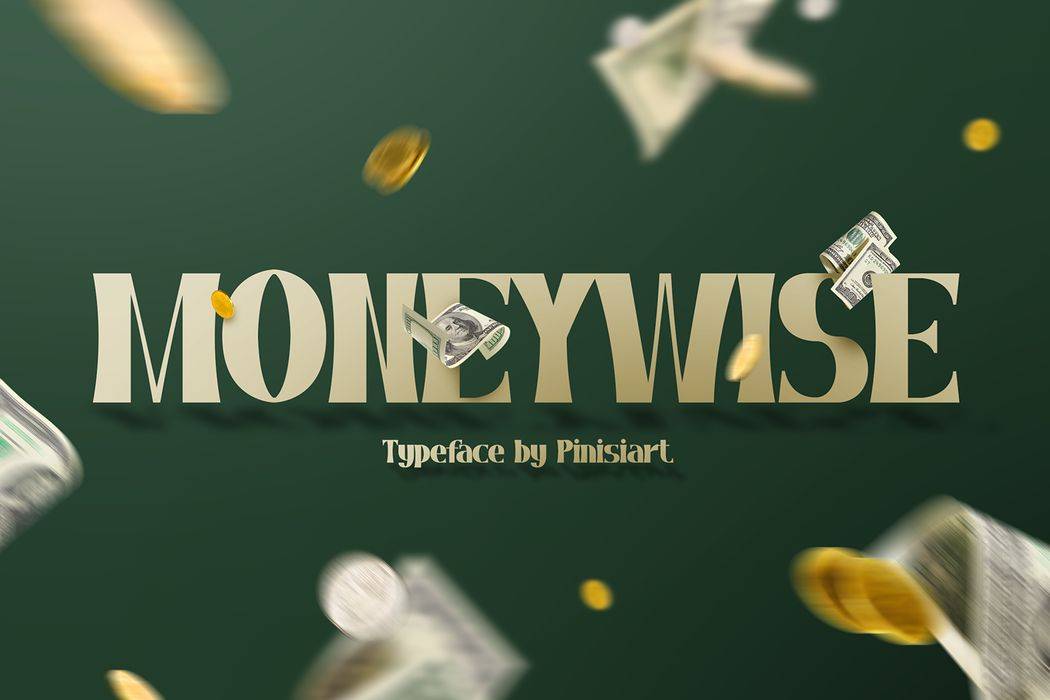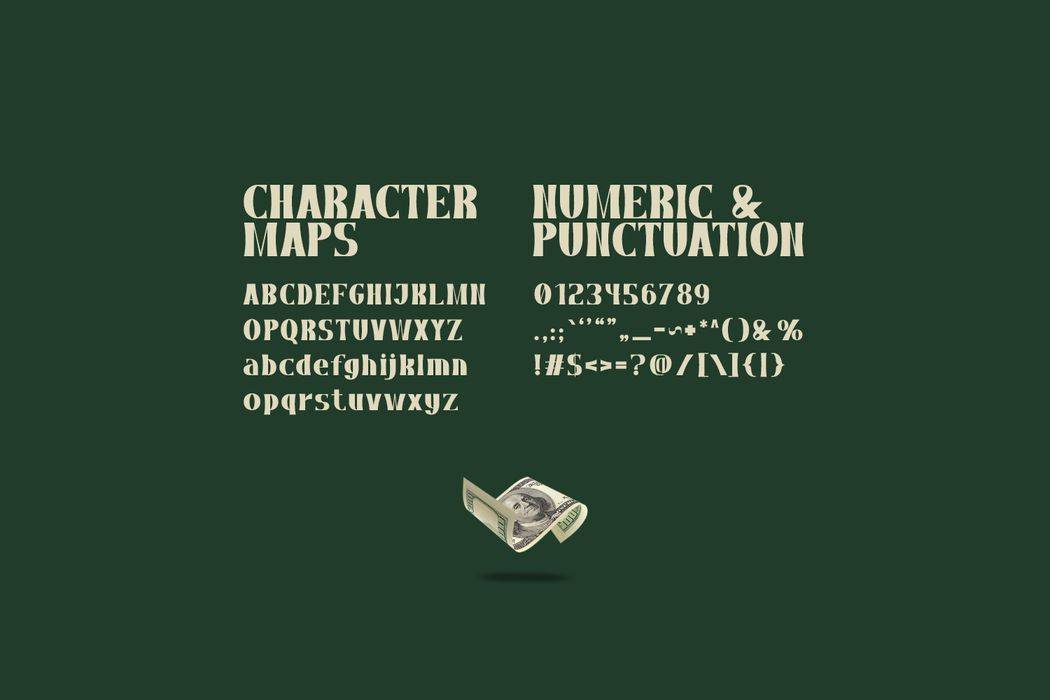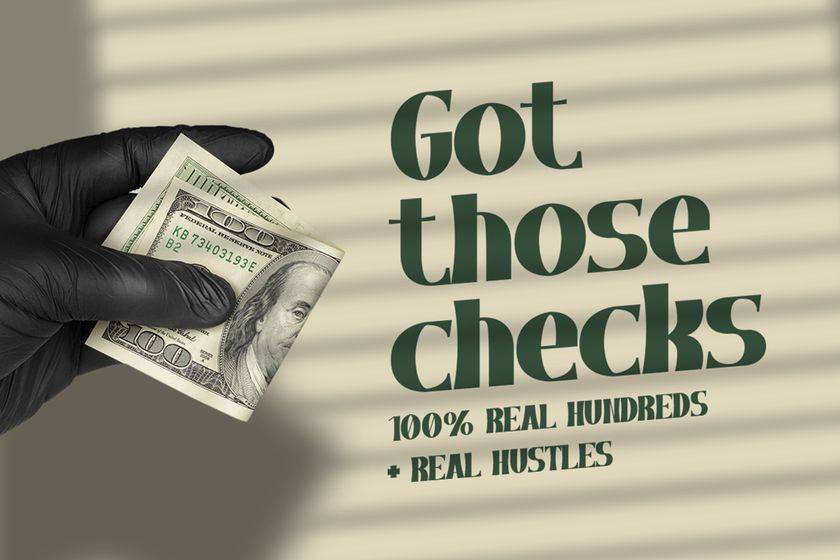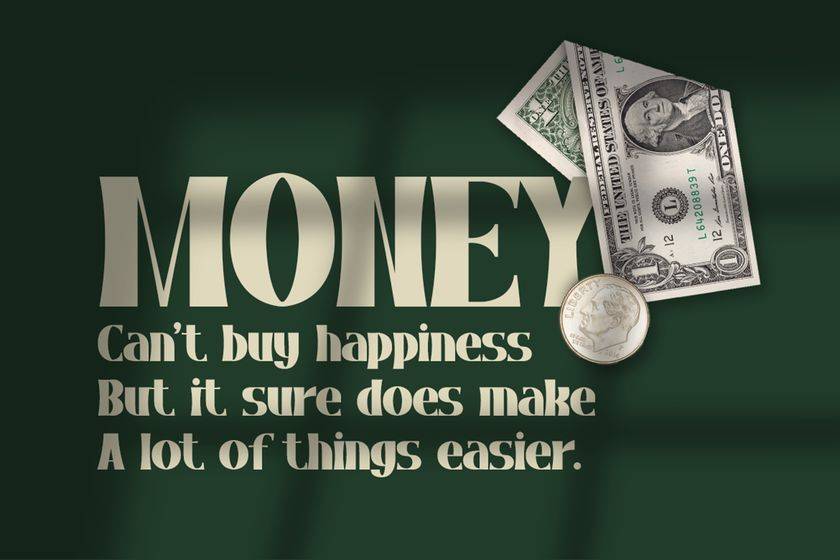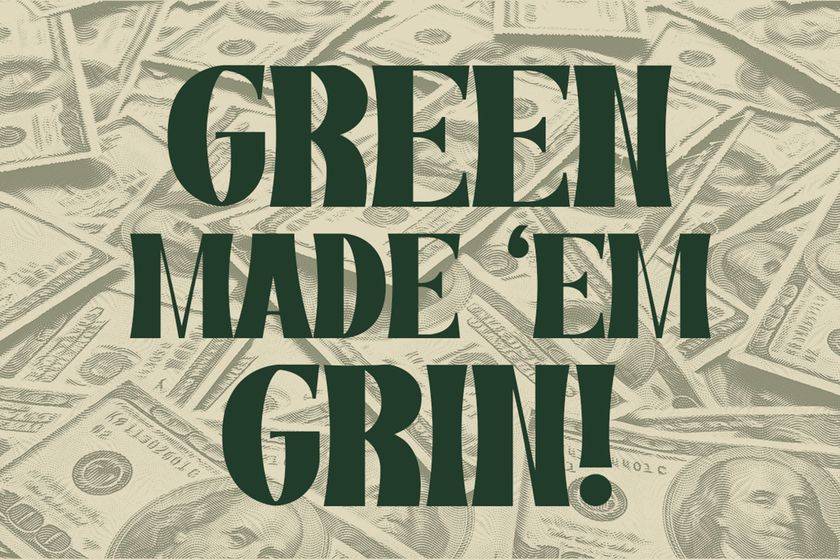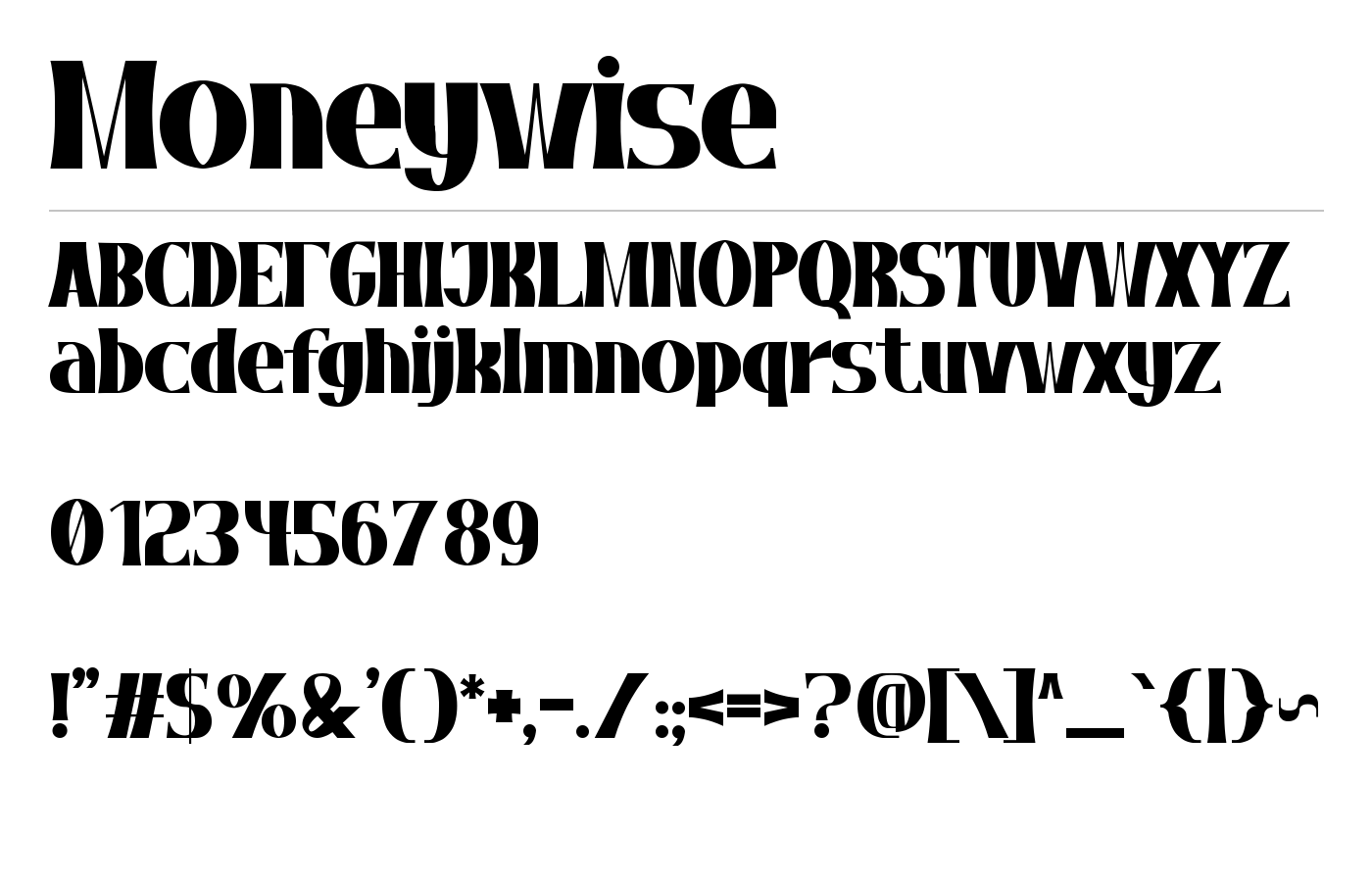
Moneywise is a bold, condensed serif font with a strong presence and high contrast between thick and thin strokes, giving it a dramatic and stylish look. Its unique letterforms, such as the sharp serifs and distinctive curves, evoke a vintage yet modern feel, making it perfect for logos, headlines, and luxury branding where a memorable and sophisticated impact is needed. This font suits fashion, editorial, and packaging designs that aim to command attention with elegance and flair.
Moneywise Font
About Moneywise Font